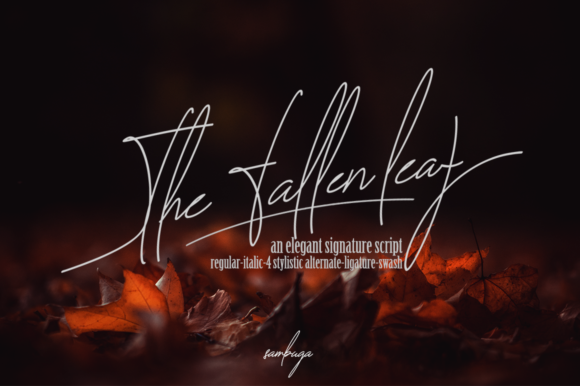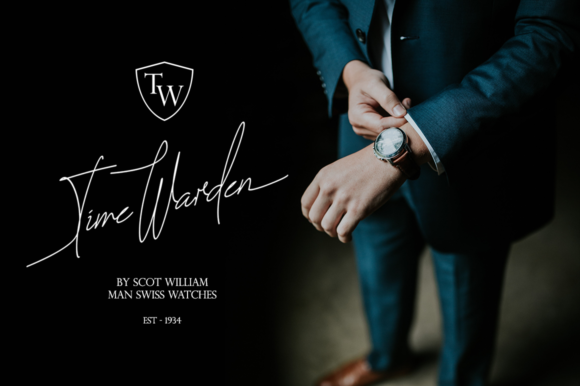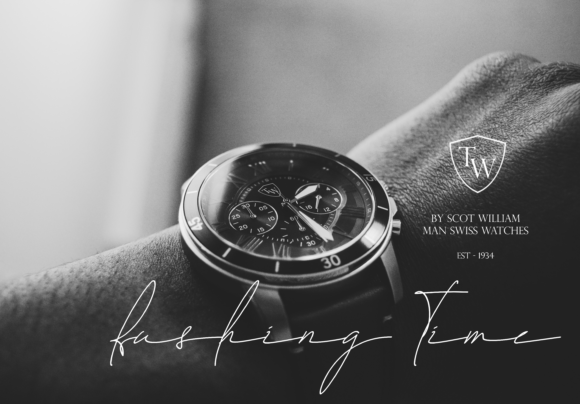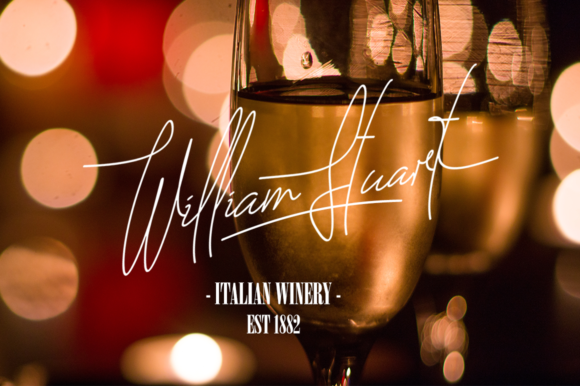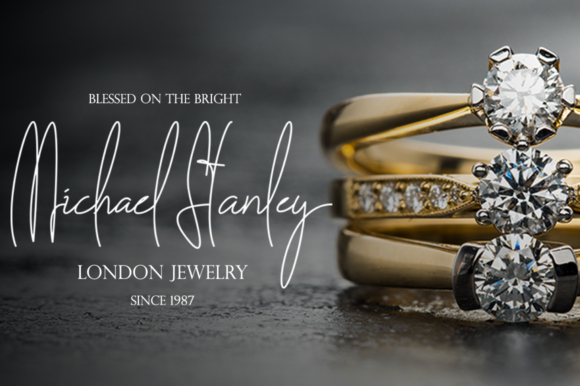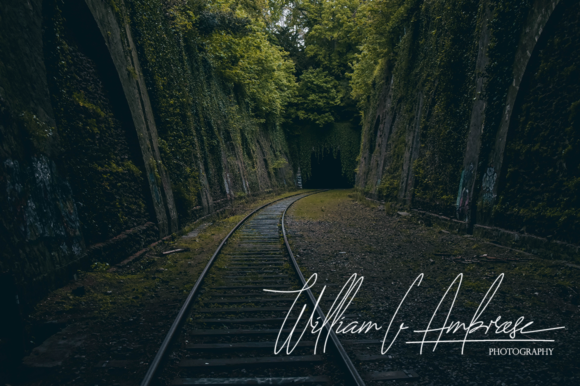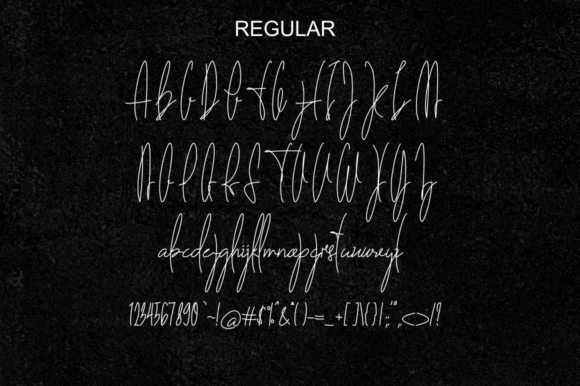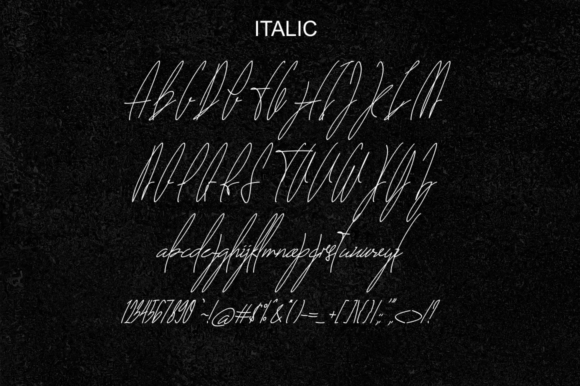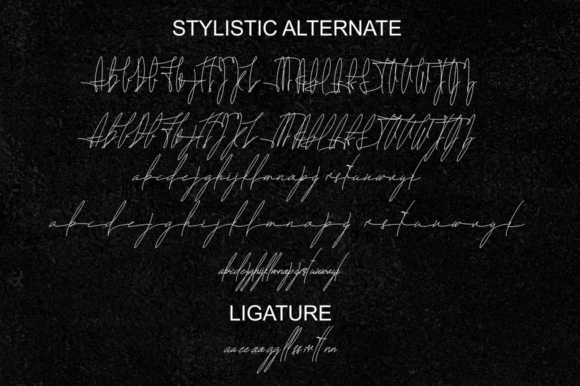
The Fallen Leaf Font
About The Fallen Leaf Font
The Fallen Leaf is a thin signature font with an authentic vibe. Use it to add a personal touch to any design project!